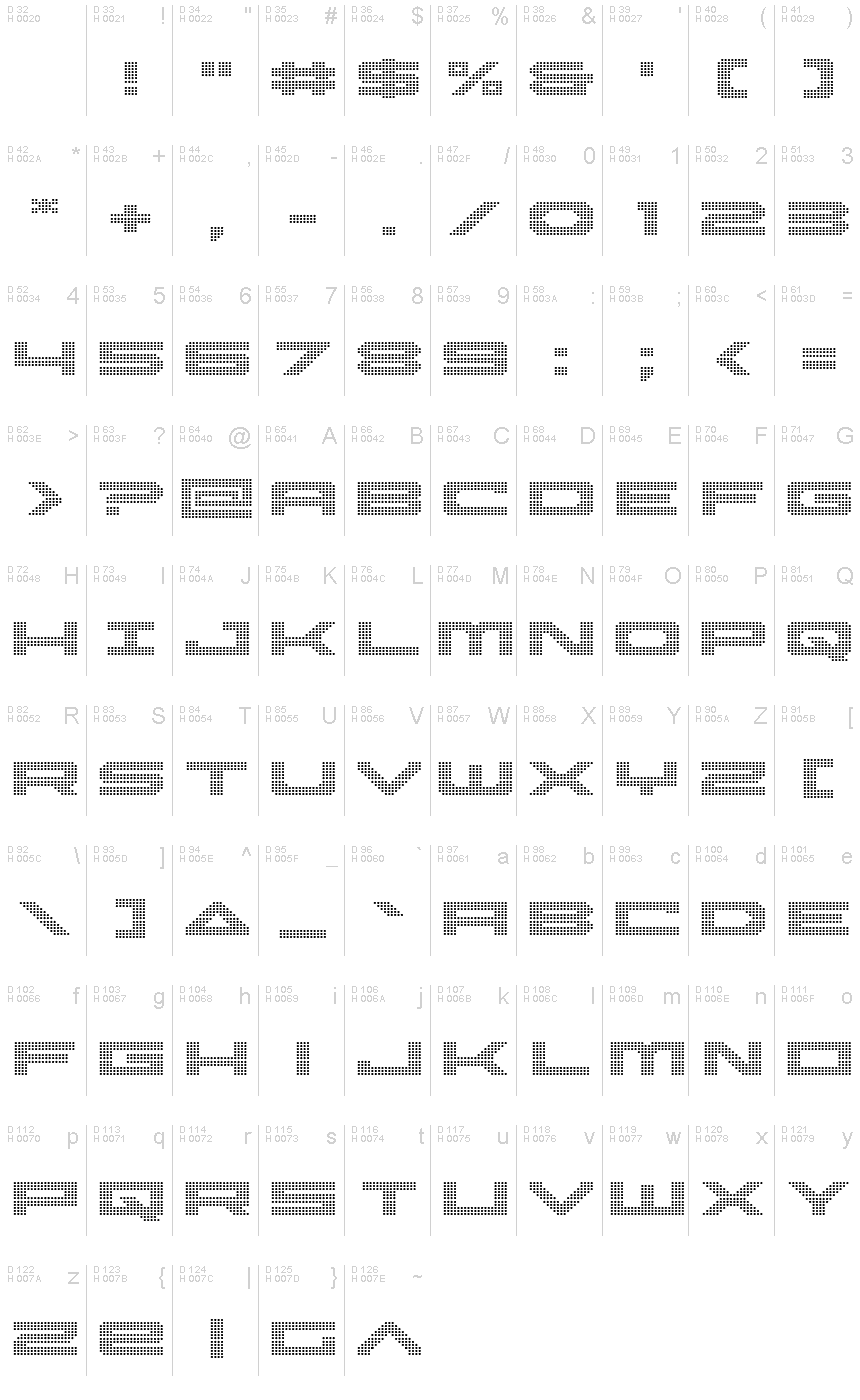
Pocket Ball
Pocket Ball, a bold creation by Daniel Zadorozny, is a font that encapsulates the essence of digital dynamism with its extra-expanded width and assertive presence. This display type font boasts an unapologetically digital style that commands attention, making it an ideal choice for projects that require a strong visual impact.
The robust weight of Pocket Ball paired with its distinctive digital flair lends itself to creative endeavors where a touch of modernity and innovation is key. Whether it's for eye-catching headlines, standout logos, or engaging social media graphics, this font has the versatility to elevate your design with its unique aesthetic appeal.
Embrace the contemporary vibe of Pocket Ball to infuse your creative projects with a sense of energy and forward-thinking design.
The robust weight of Pocket Ball paired with its distinctive digital flair lends itself to creative endeavors where a touch of modernity and innovation is key. Whether it's for eye-catching headlines, standout logos, or engaging social media graphics, this font has the versatility to elevate your design with its unique aesthetic appeal.
Embrace the contemporary vibe of Pocket Ball to infuse your creative projects with a sense of energy and forward-thinking design.